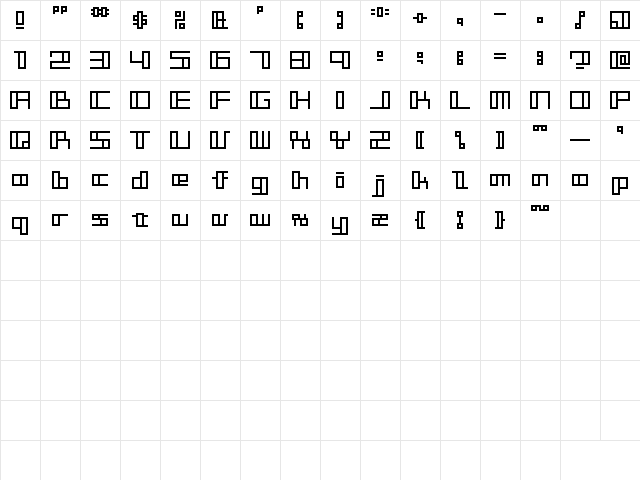
Pop Tune OutBitA12 Regular
Design Context for Pop Tune OutBitA12 Typeface
Pop Tune OutBitA12 is a composed and adaptable typeface that performs quietly and consistently across a wide range of design contexts.